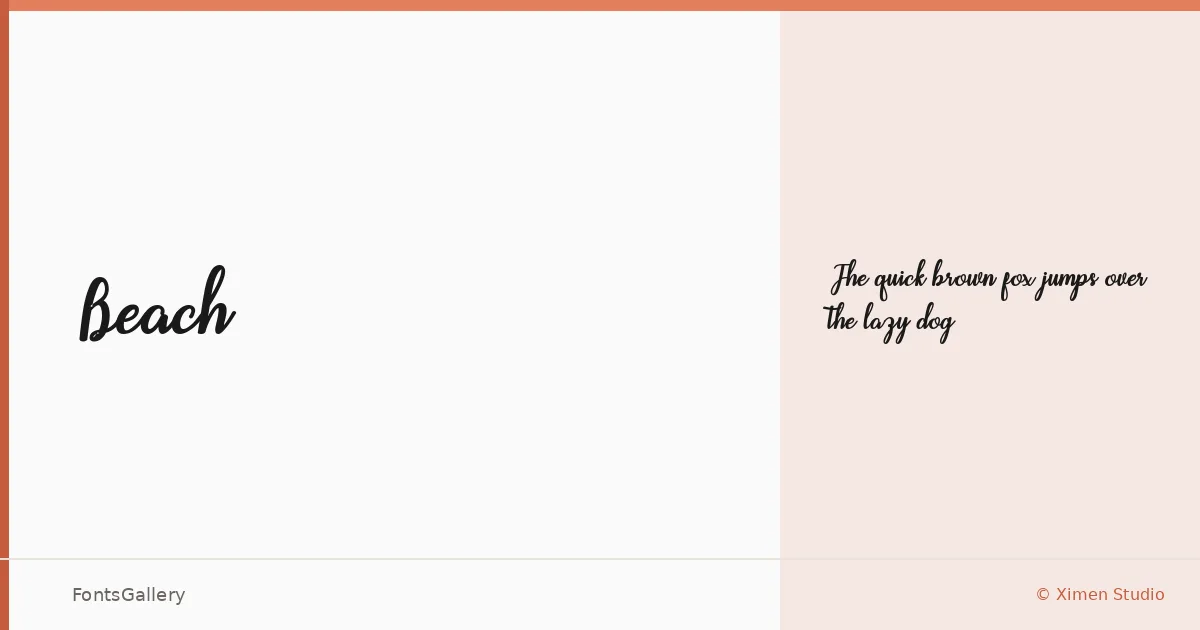
About Beach Font
There is a looseness to this script that feels genuinely handwritten — not mechanically even, but alive at the baseline in the way a good pen line is. It comes from Ximen Studio and is offered in a single cut, Beach Regular, available in both TTF and OTF formats.
The script sits in territory that is at once elegant and playful, with a romantic softness to the letterforms that keeps it from feeling stiff or overly formal. Flowing connections between characters give it natural momentum, and the overall texture reads warmly even at smaller sizes. Because there is only one style in the family, the character of the face itself has to do all the work — and it does.
It earns its keep on wedding stationery, invitation cards, and greeting cards where a handcrafted warmth is expected, and translates well to branding and social media graphics that call for the same romantic register. For contrast and balance, it pairs well alongside Canela, Helvetica, ABC Arizona, (AH) Manal, and Anglecia Pro — each offering a different kind of structural counterweight to the script's fluidity.